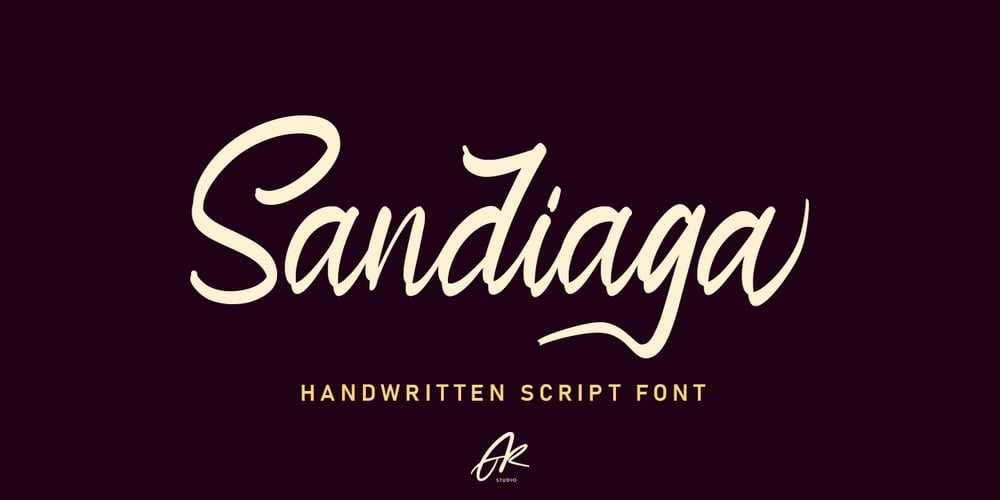
Sandiaga Font Family was designed by Asep Rendi and published by Arendxstudio. Sandiaga contains 1 styles and family package options. Sandiaga is a handwritten script font that is designed to suit the needs of consumers who focus on the custom style. Sandiaga comes with OpenType features such stylistic alternates, stylistic sets & ligatures good for logotypes, posters, badges, book covers, t-shirt design, packaging and more.Features : • Character Set A-Z • Numerals & Punctuations (OpenType Standard) • Accents (Multilingual characters) • Ligature • Alternate There it is! I really hope you enjoy it – comments & likes are always welcome and accepted. More importantly, don’t hesitate to send a message if you have a problem or question.